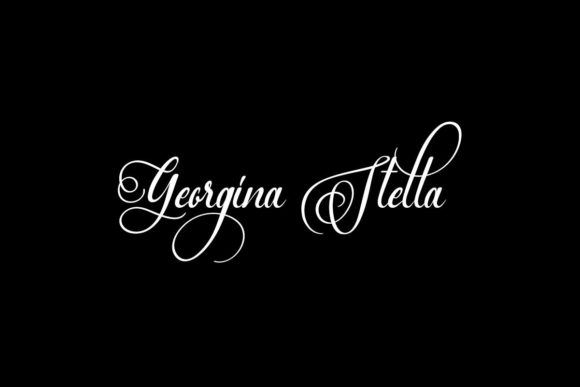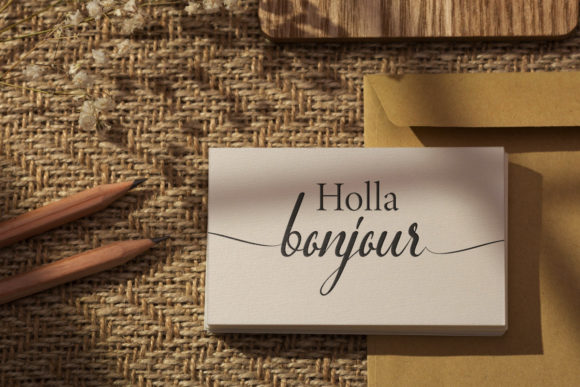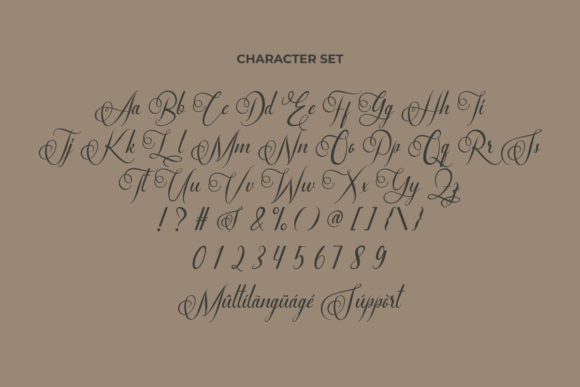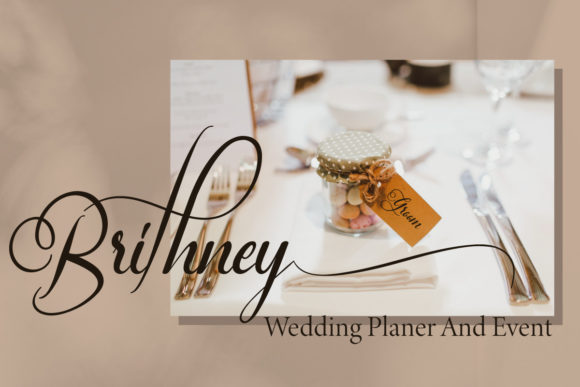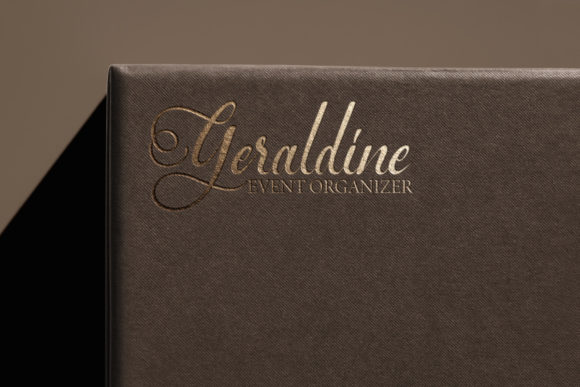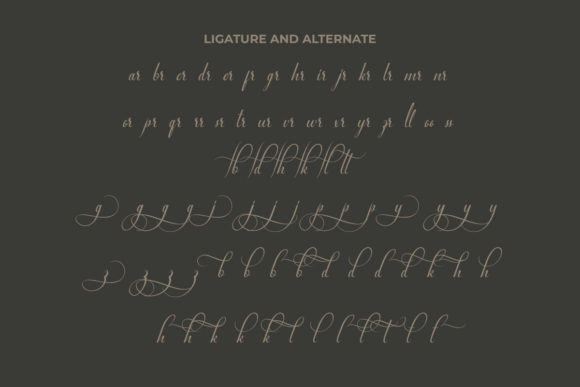
Introduction to Georgina Stella Font
Georgina Stella is a lovely and timeless handwritten font.
It is the best choice for creating eye catching logos, branding and quotes This font is PUA encoded which means you can access all of the glyphs and swashes with ease.
Key Features of Georgina Stella Font